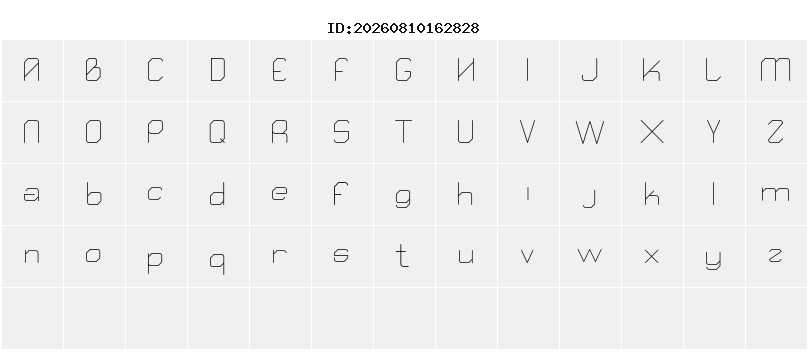
About Qube.otf
Qube.otf is a modern, elegant sans-serif font designed for ultimate readability and visual harmony. Perfect for branding, headlines, web design, and print materials.